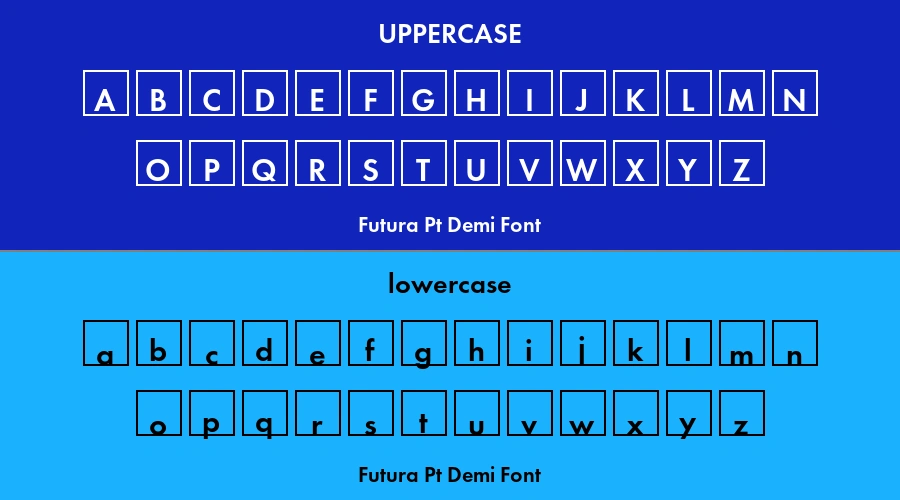
About Futura Pt Demi Font
When typographic excellence matters most, Futura Pt Demi Font delivers through its thoughtful blend of alternates and adaptability. Specially crafted for technical manuals, it offers the consistency and artistic value required for sophisticated design work. Every detail serves a purpose.
The character set showcases thoughtful details like measured spacing alongside functional stylistic sets. This proves especially valuable in marketing collateral, where versatility directly influences results. Particular attention was paid to vertex treatment and artistic merit during development.